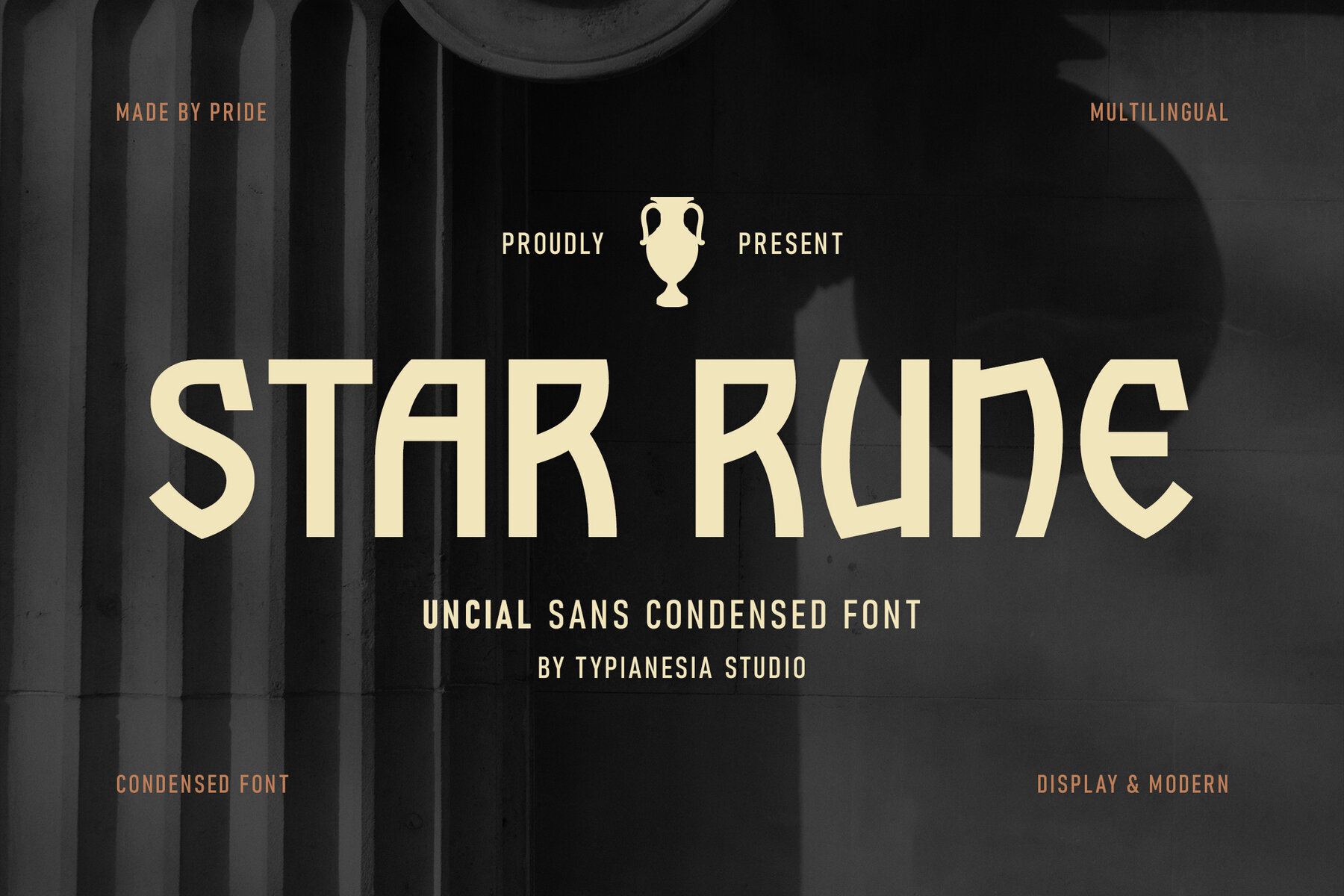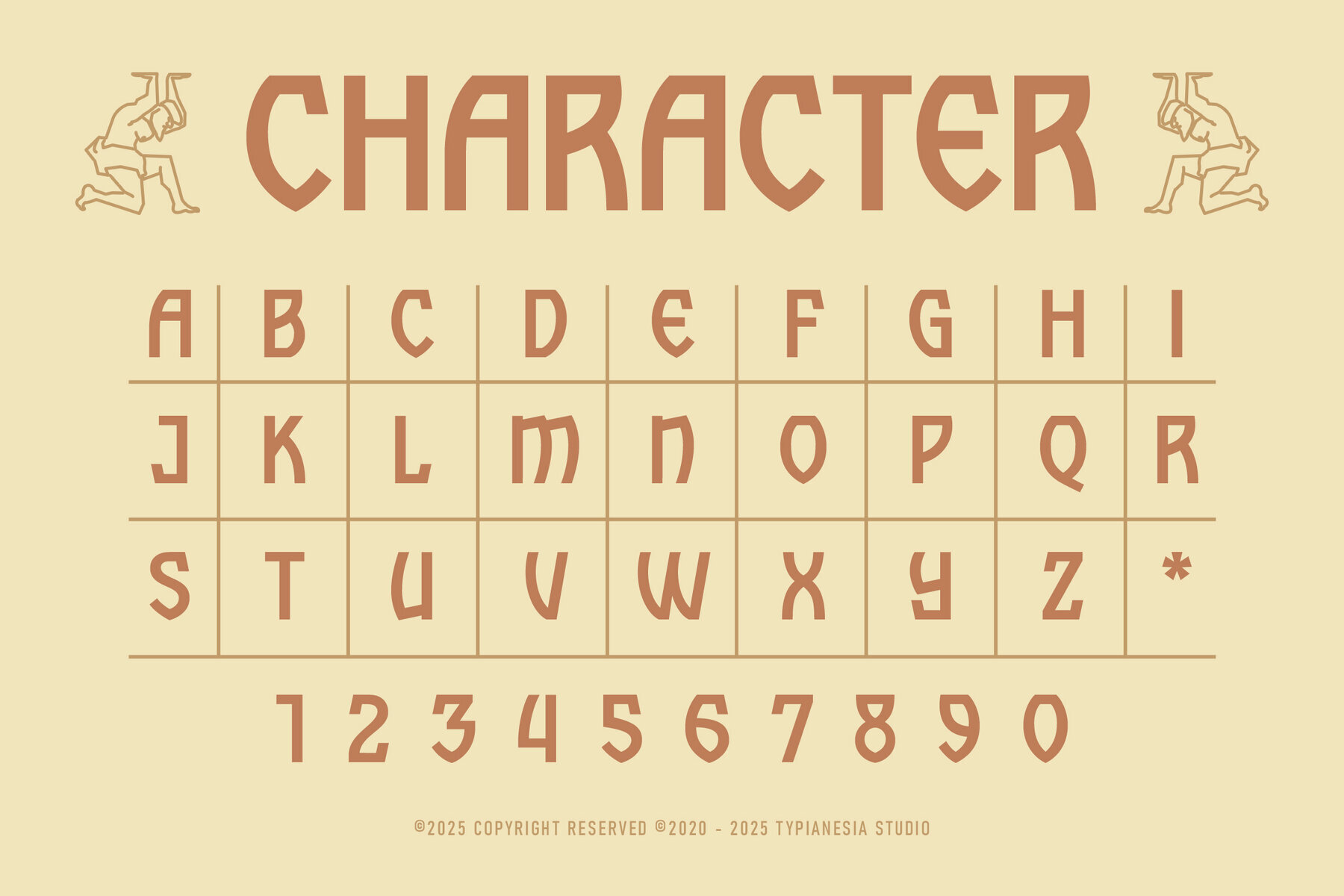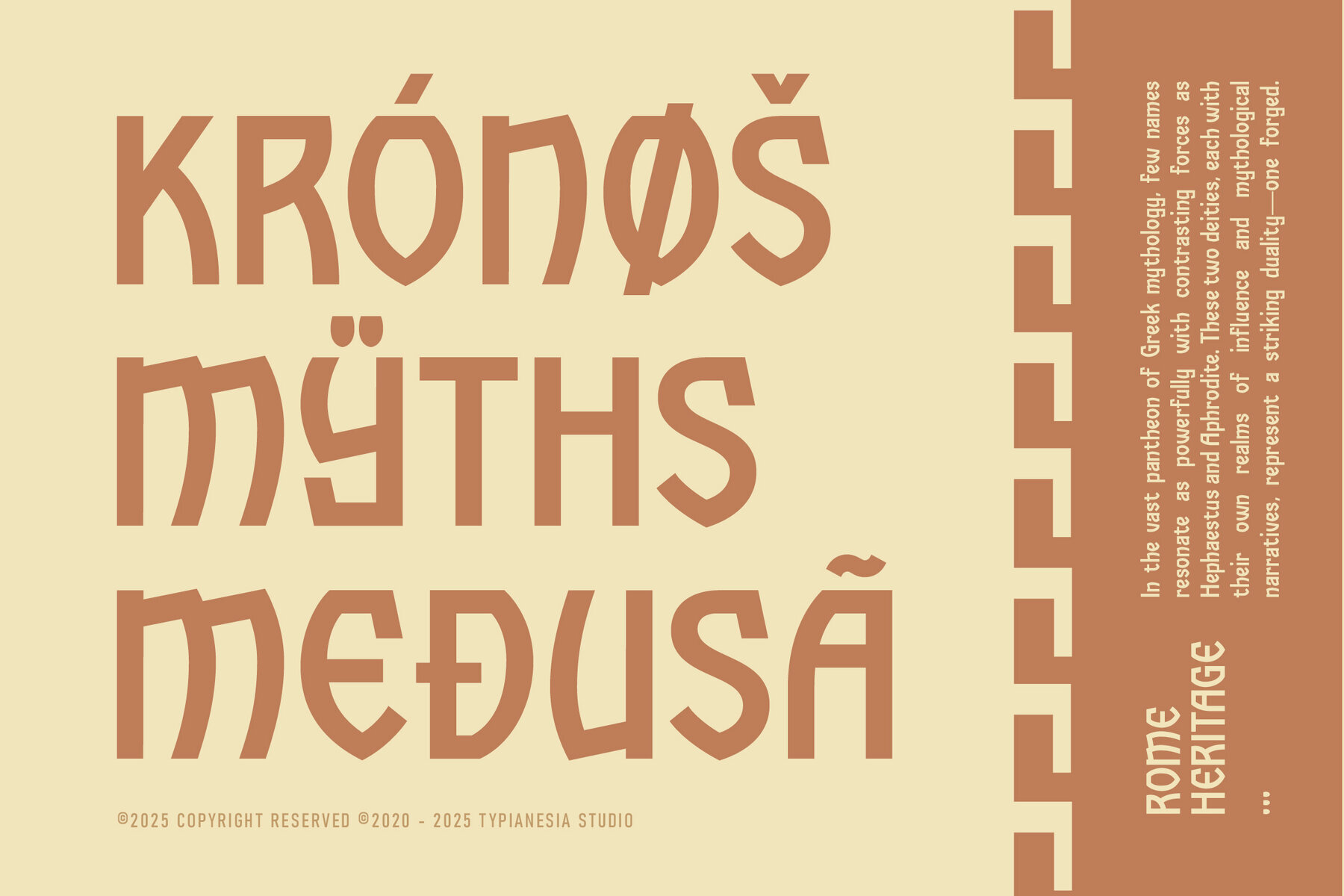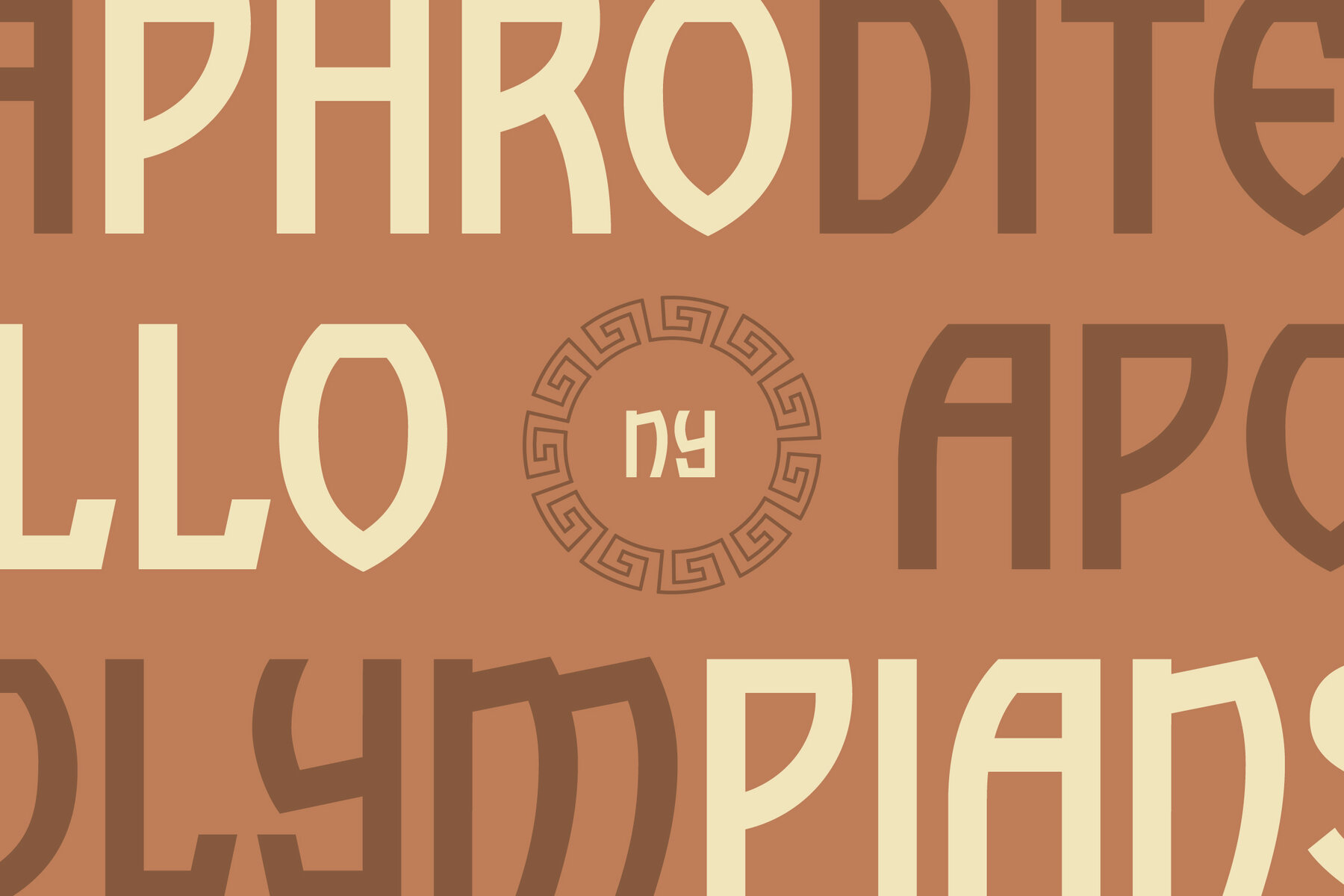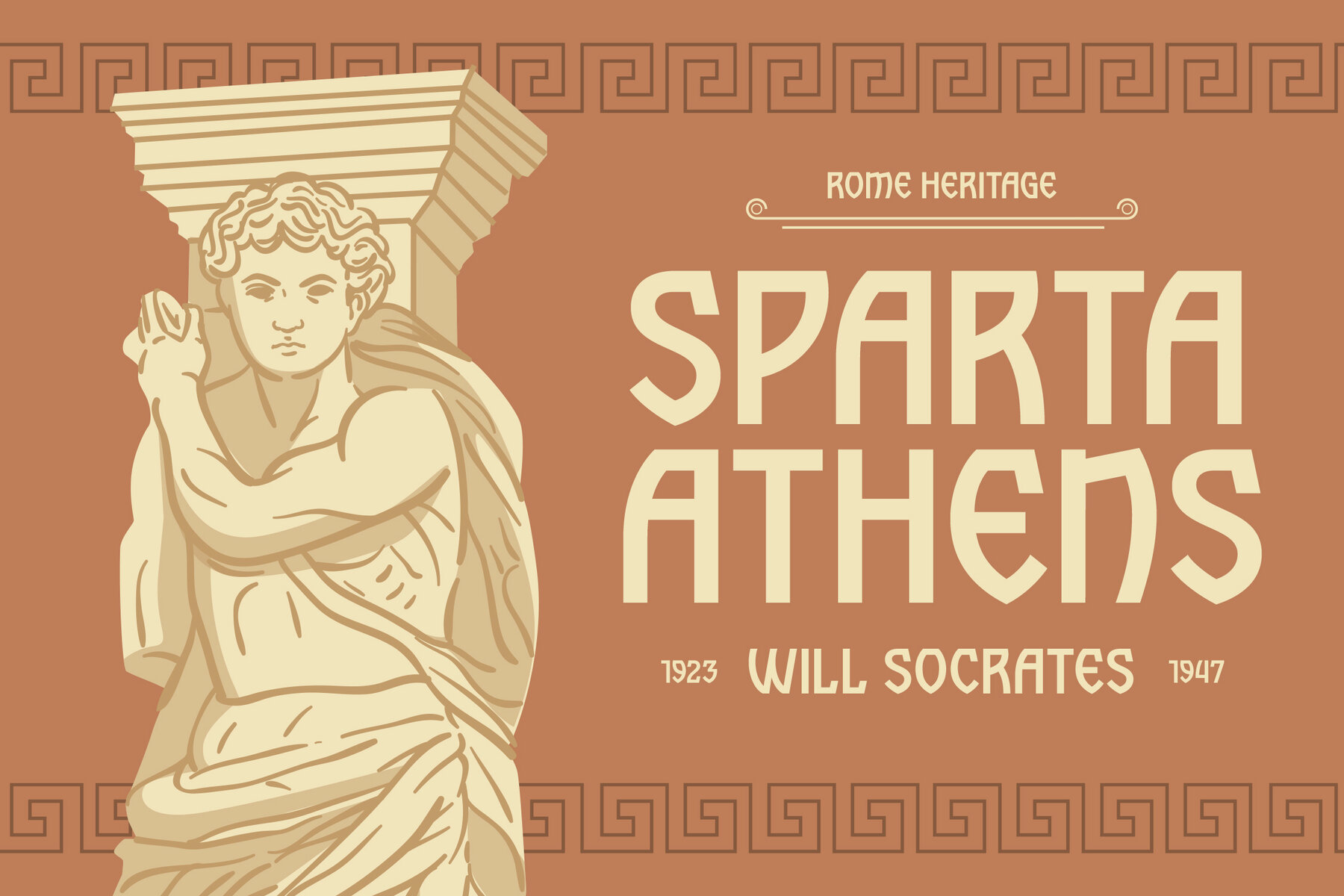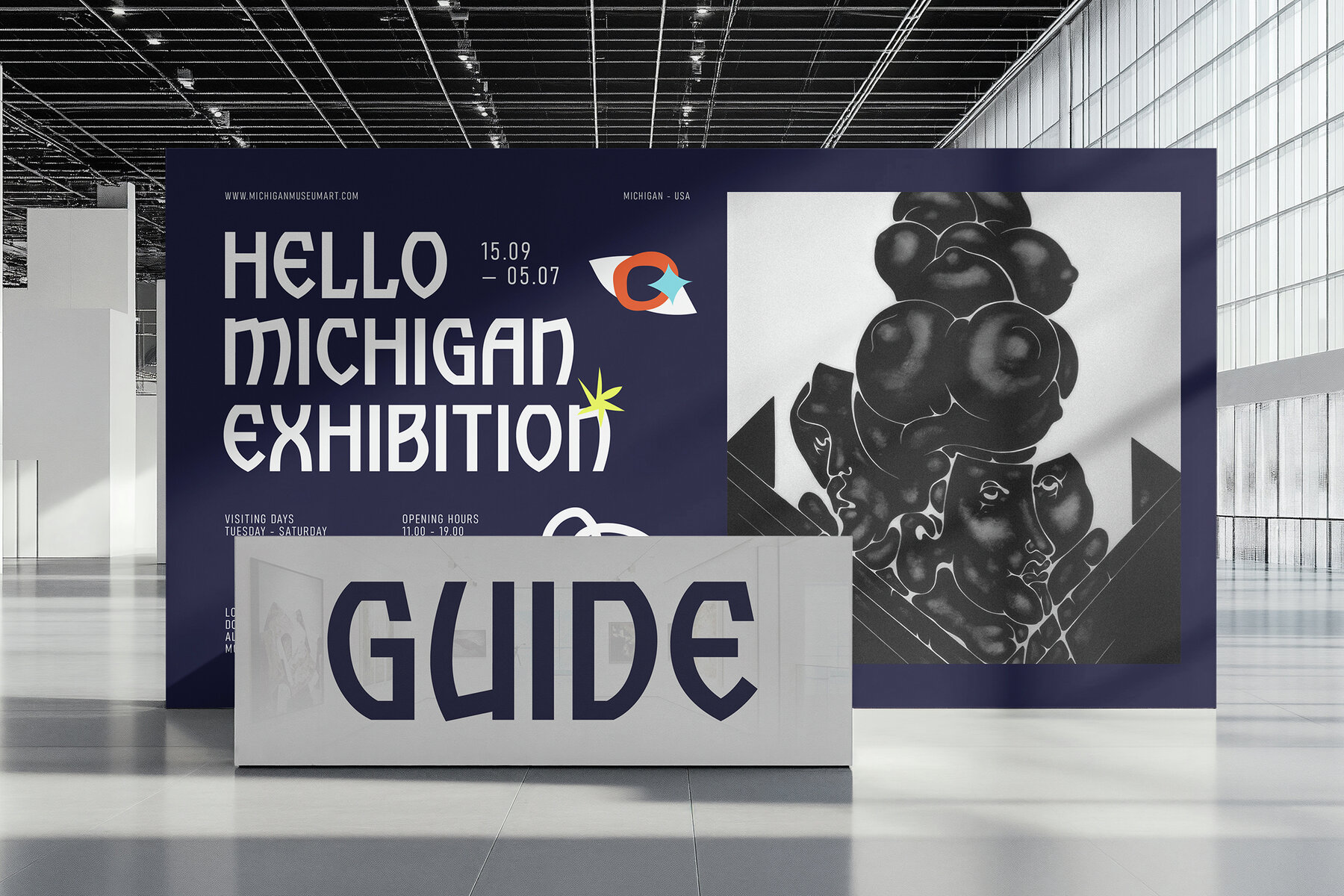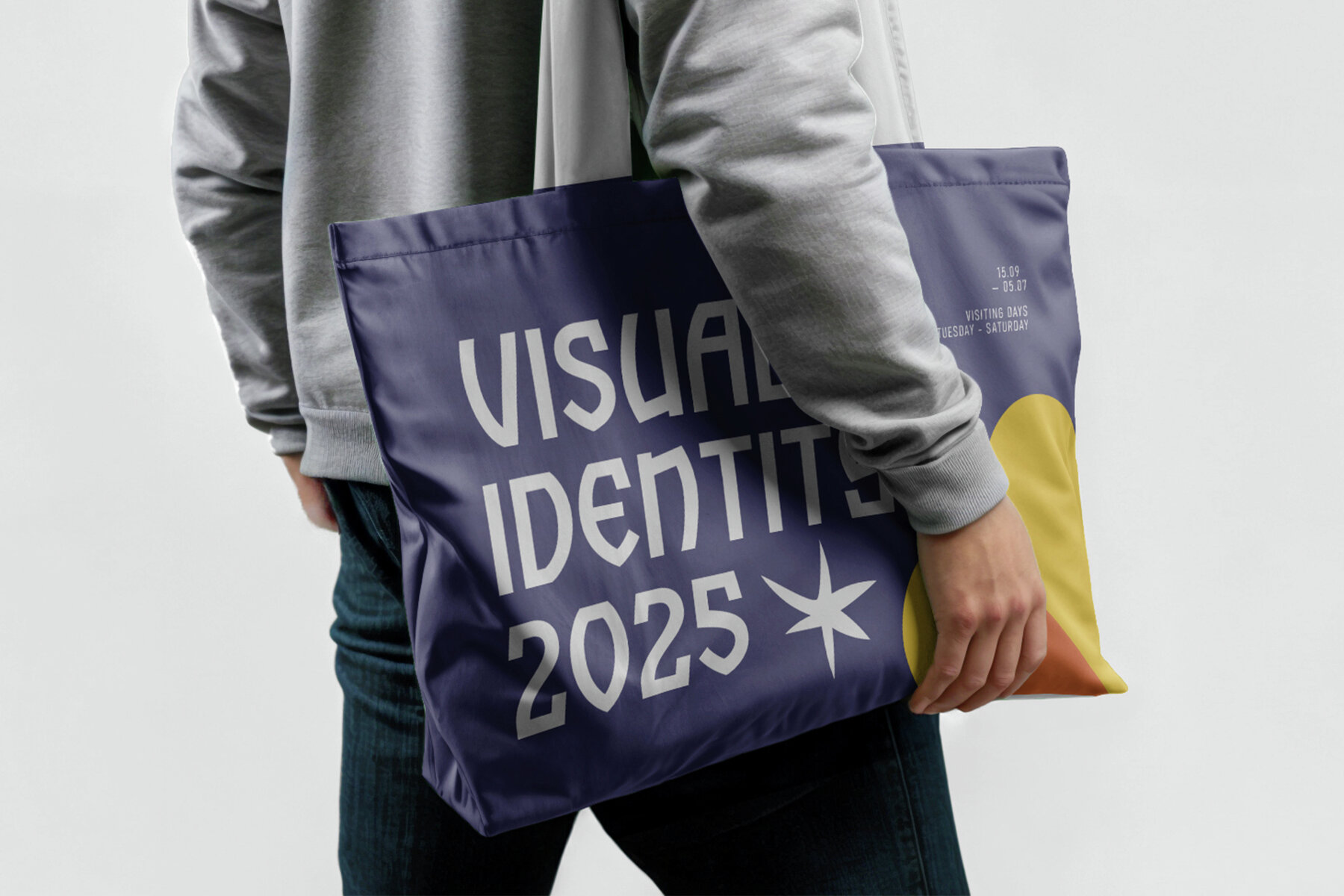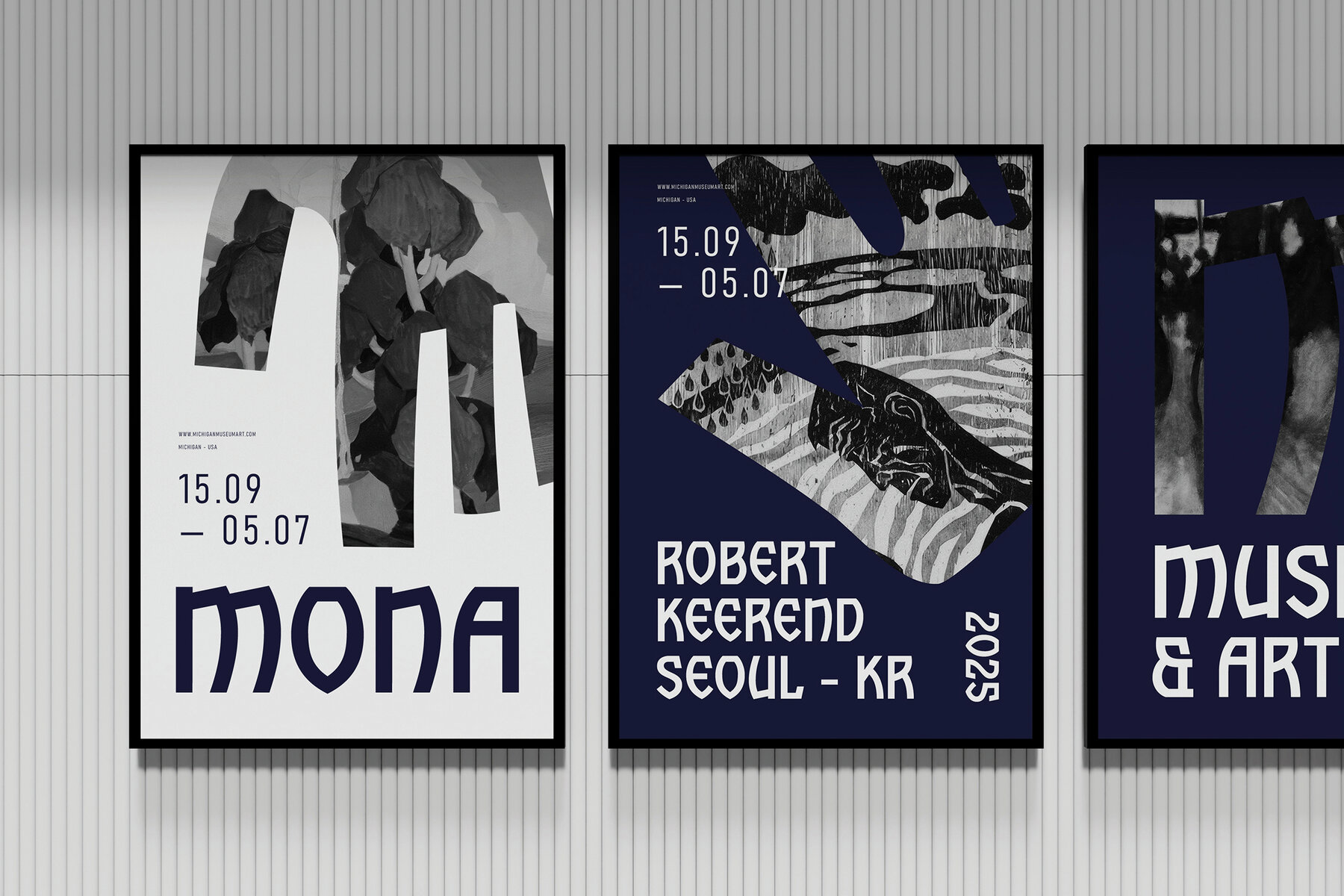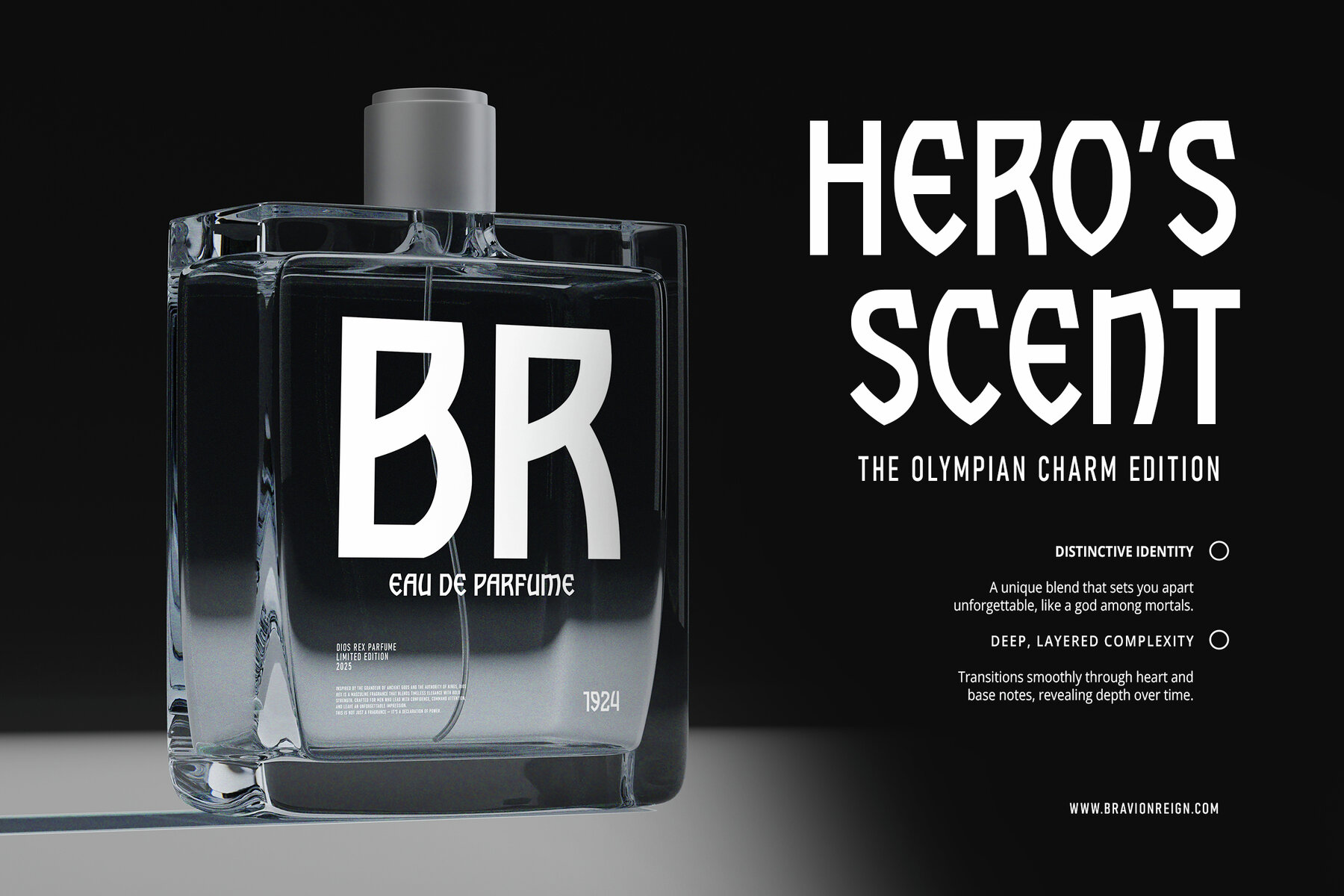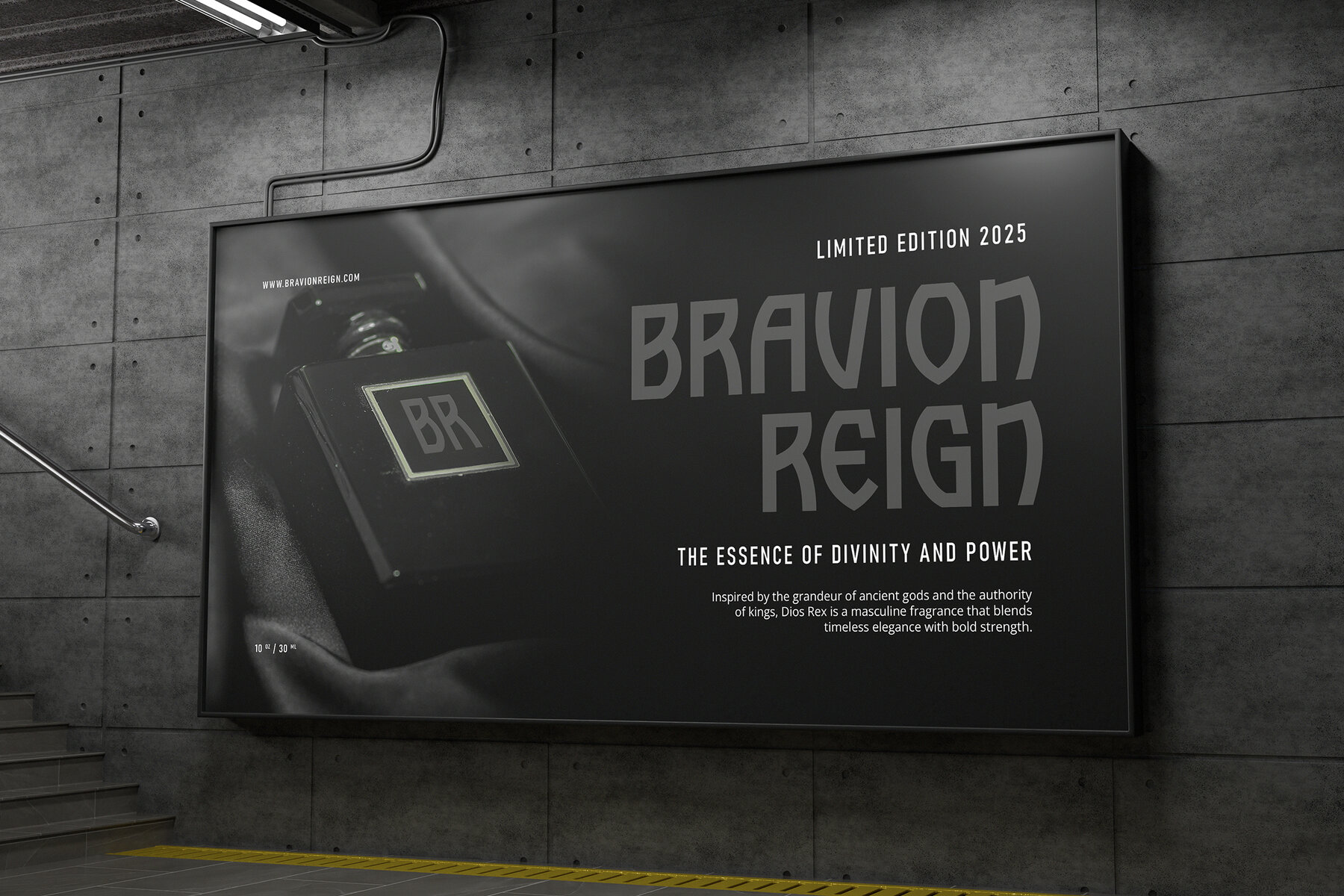
Star Rune Font
Star Rune Regular
Star Rune stands as a unique font that artfully merges the ancient style of uncial script with the clean lines of modern sans serif. This bold and condensed typeface serves as an ideal selection for design projects that aim to showcase both historical depth and contemporary style. Star Rune's versatility shines across various applications, from branding and game titles to museum exhibitions and fantasy-themed designs. Features: Employ Star Rune to add a touch of strength and history to your creative work, enhancing each piece with its mythological flair.Star Rune: Uncial Sans Condensed with Mythological Charm